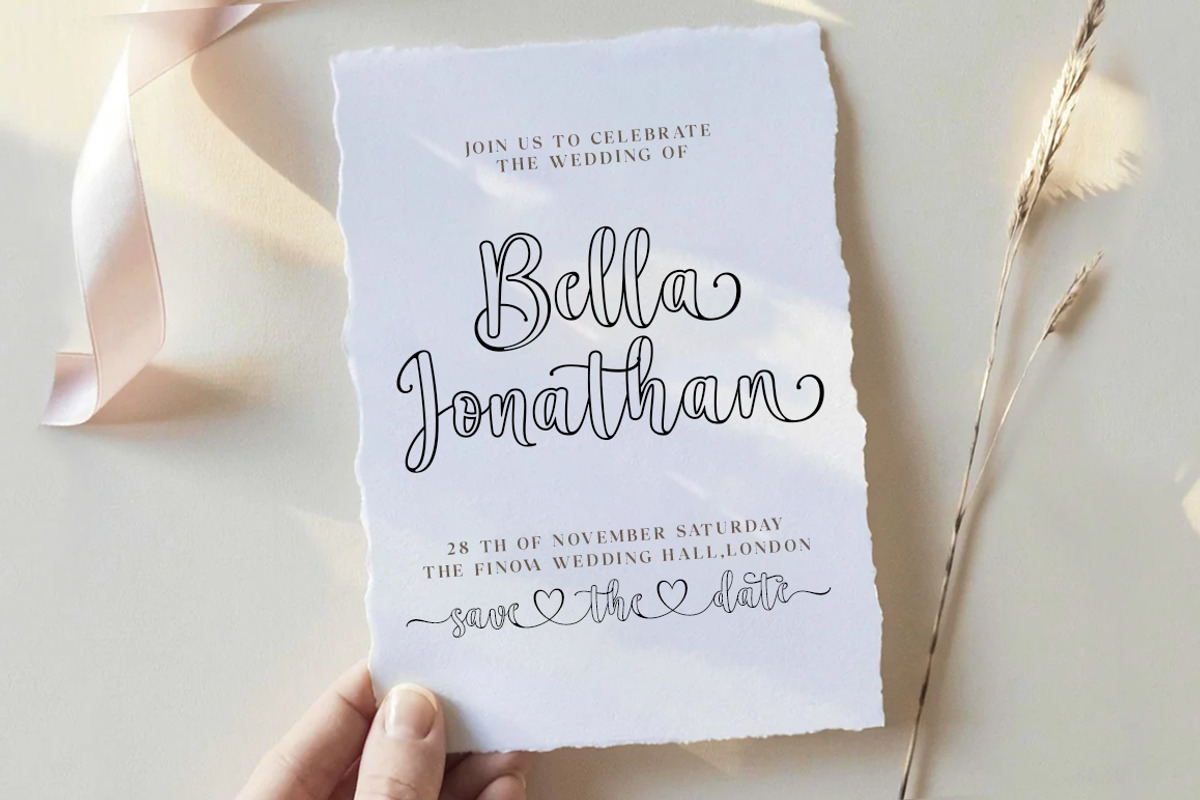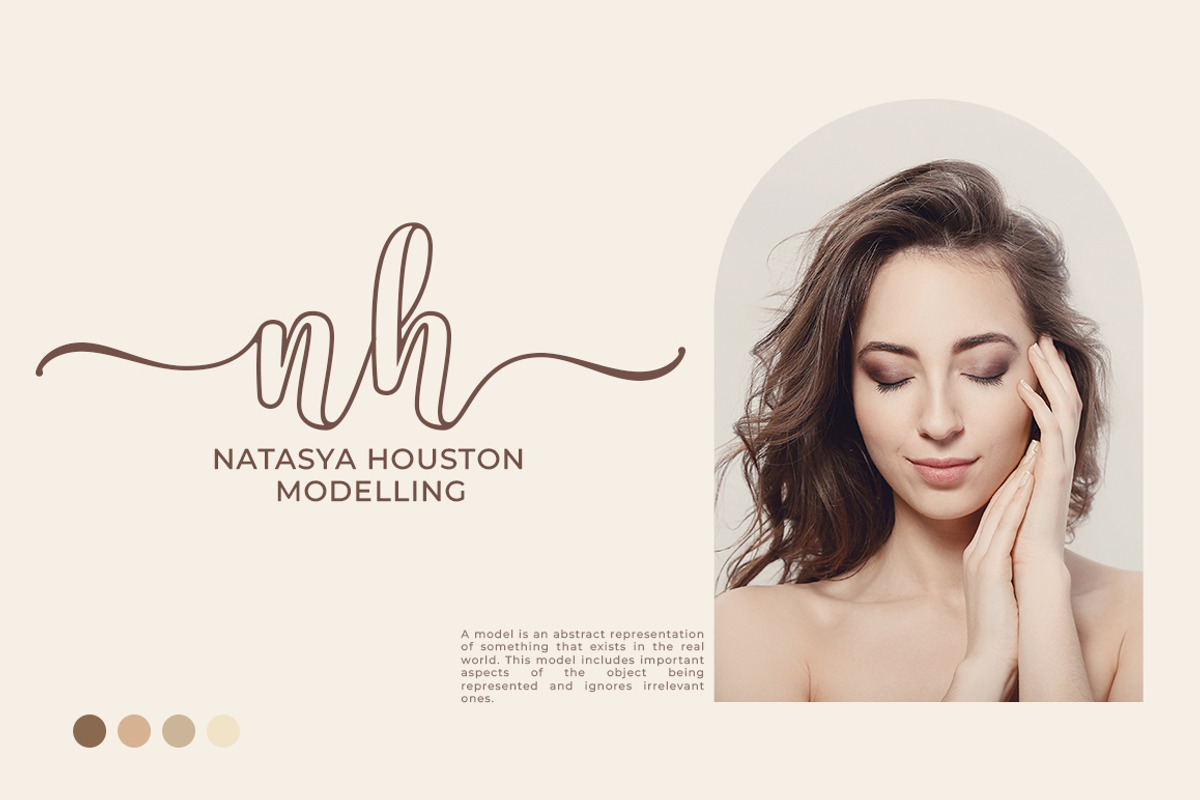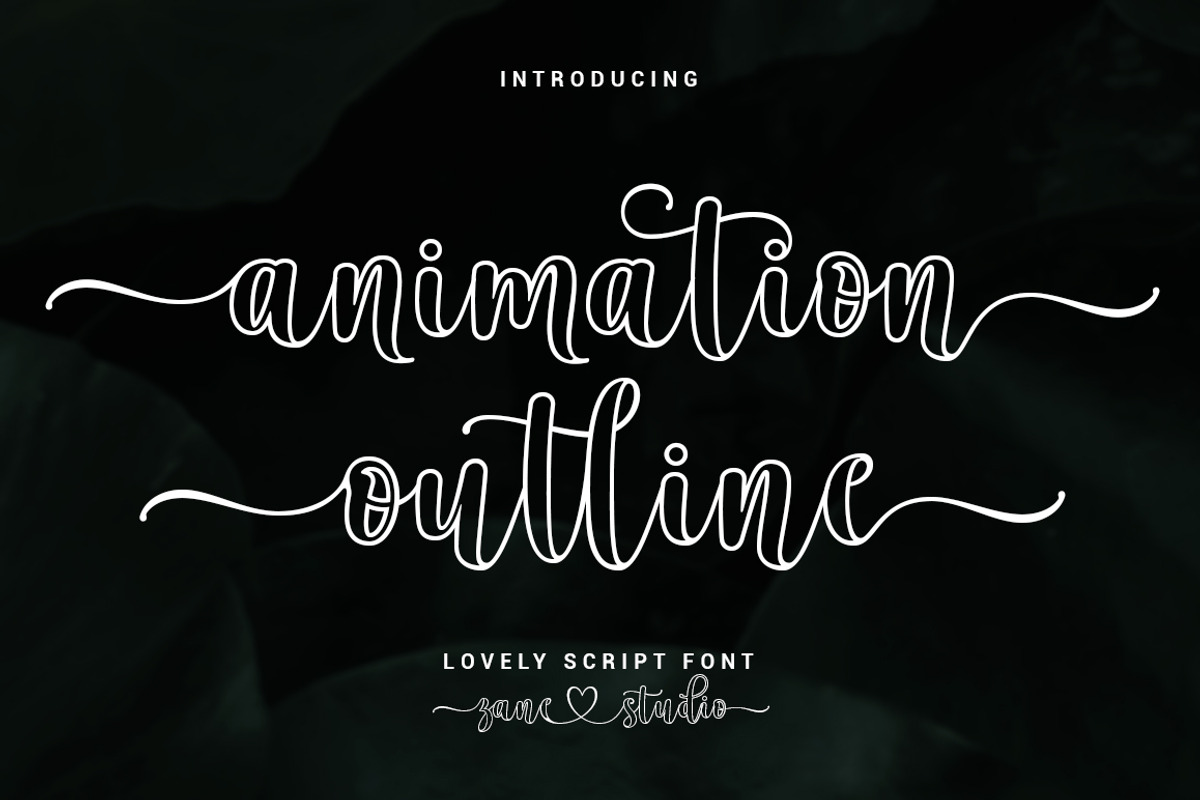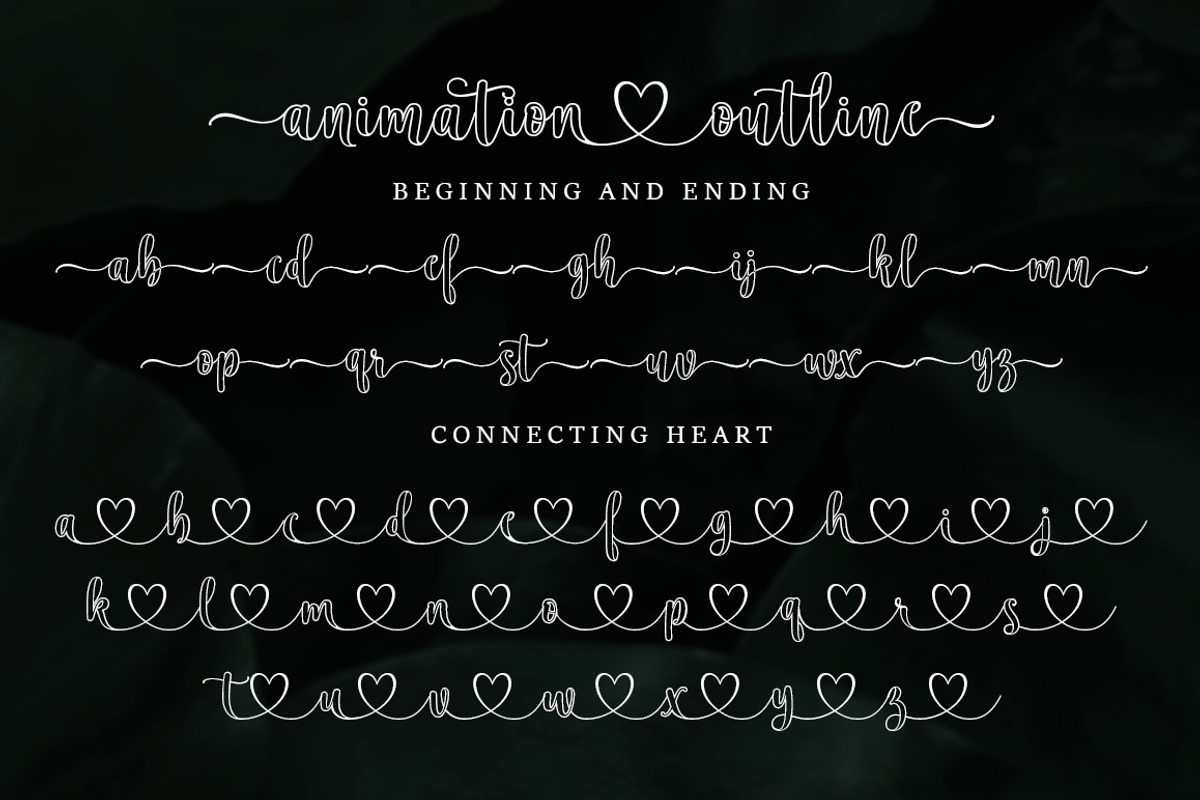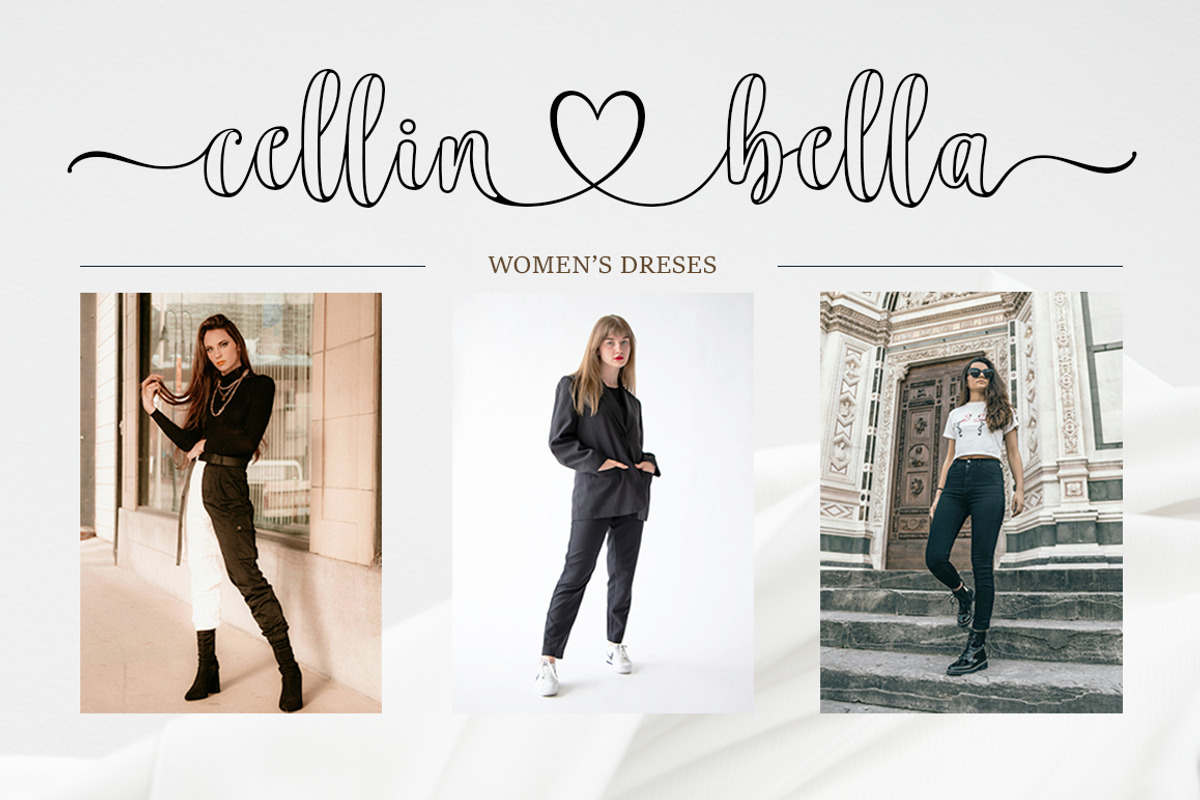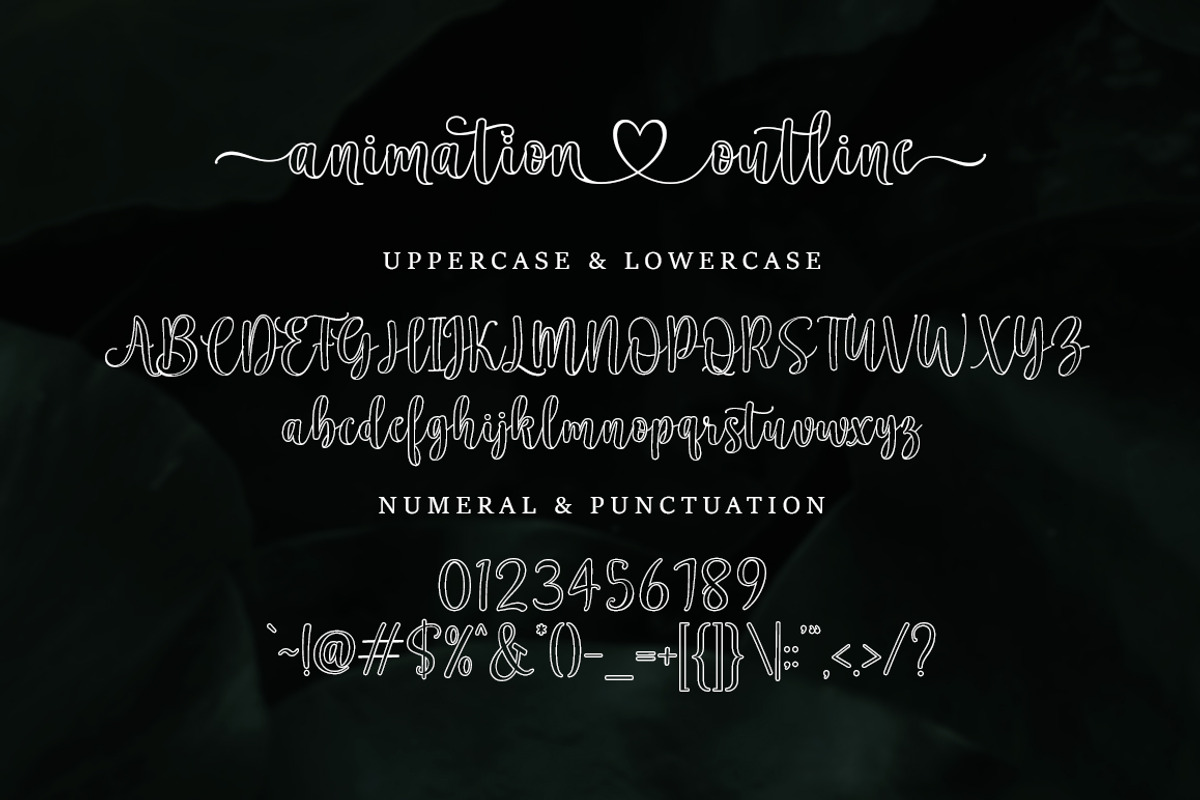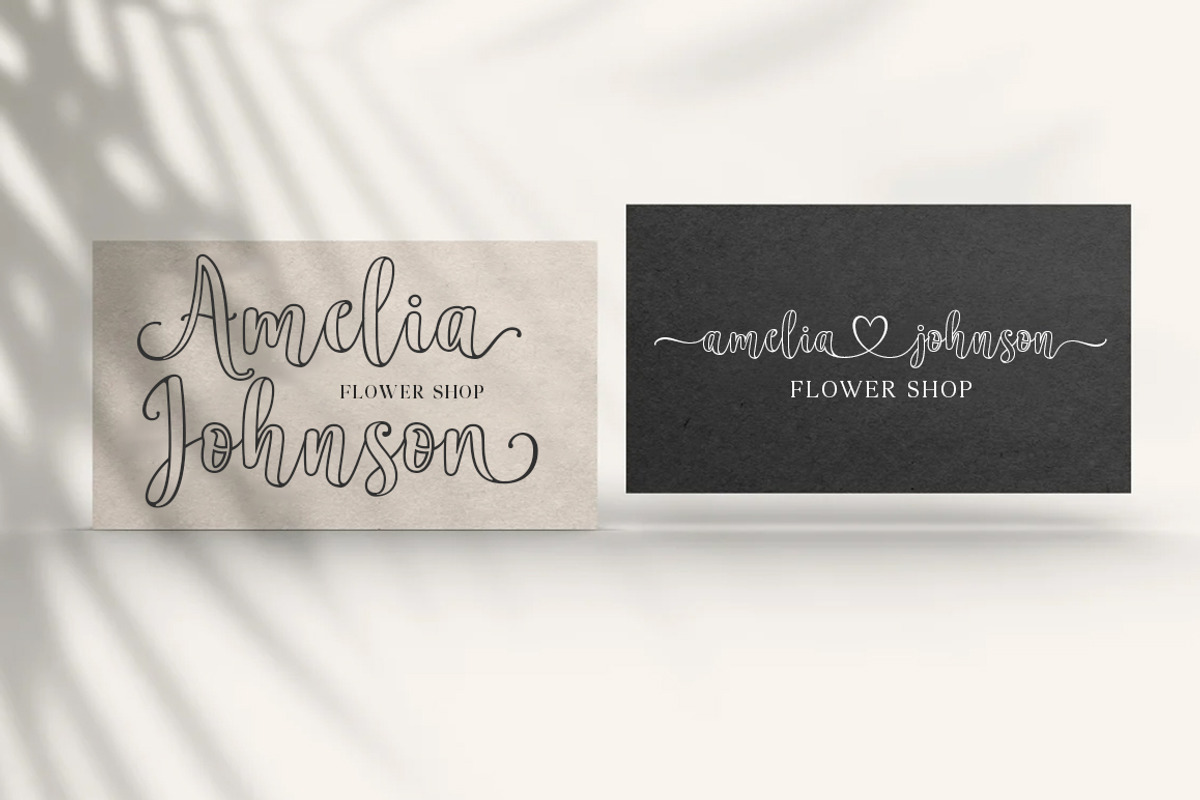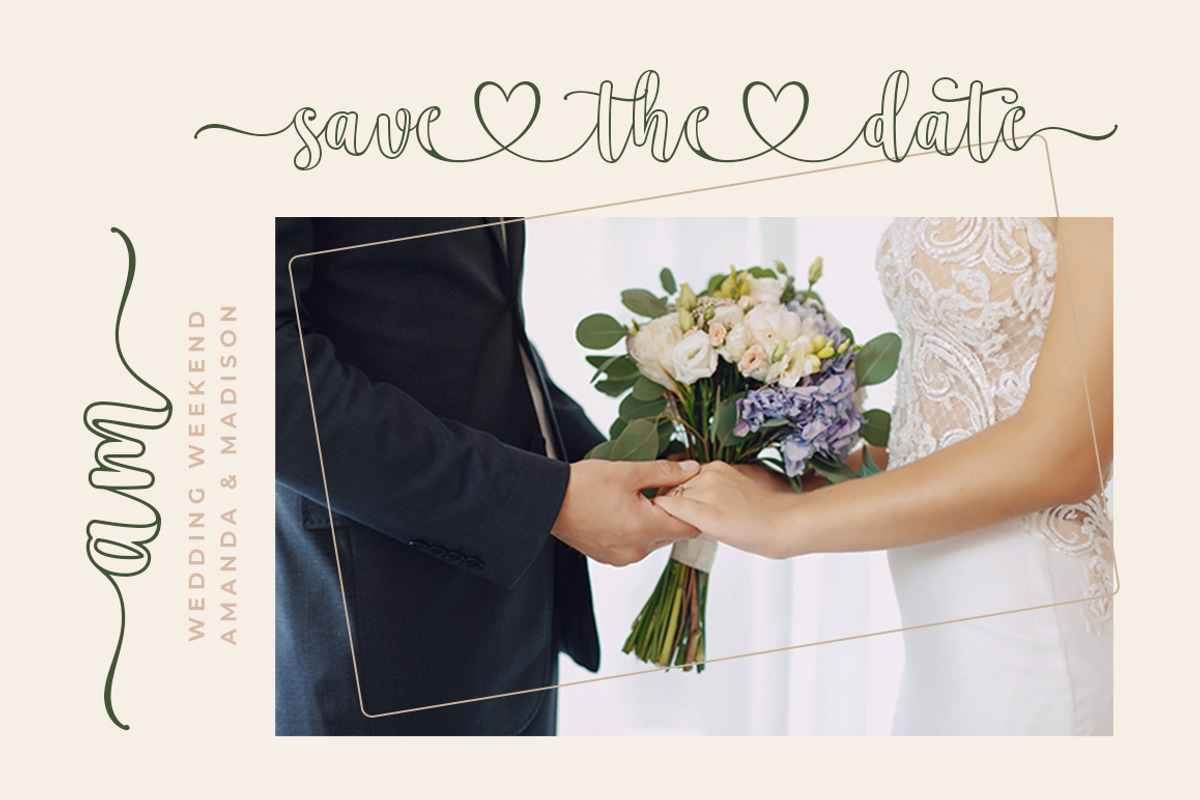
Animation Outline
Animation Outline is sleek, sleek, modern and classic hand-drawn wavy calligraphy, created to meet the needs of your next design project.
Animation Outline, can be used for various purposes. such as titles, signatures, logos, correspondence, Business Cards, Quotes, wedding invitations, letterheads, signage, labels, bulletins, posters, badges, etc.
Animation Outline Contains a complete collection of lowercase & uppercase letters, various kinds of punctuation, numbers, and multilingual support. The font also contains several ligatures, style alternatives, and Style Sets, for those of you who are open type, or via software panels that support glyphs, such as Adobe Photoshop; Adobe Illustrator, Corel Draw, and Adobe InDesign.
Let's switch from regular characters to alternate characters to get the text with the layout of your dreams.